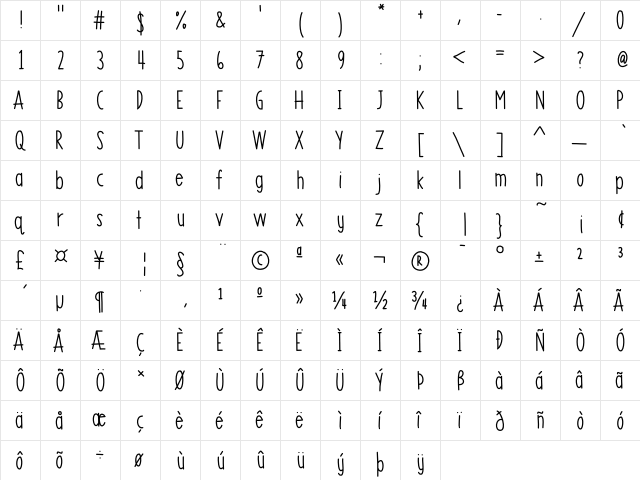
Complete MRF Lemonberry Sans Medium glyph index. Displaying only characters natively supported by MRF Lemonberry Sans Medium font.
MRF Lemonberry Sans is a composed and adaptable typeface that performs quietly and consistently across a wide range of design contexts.